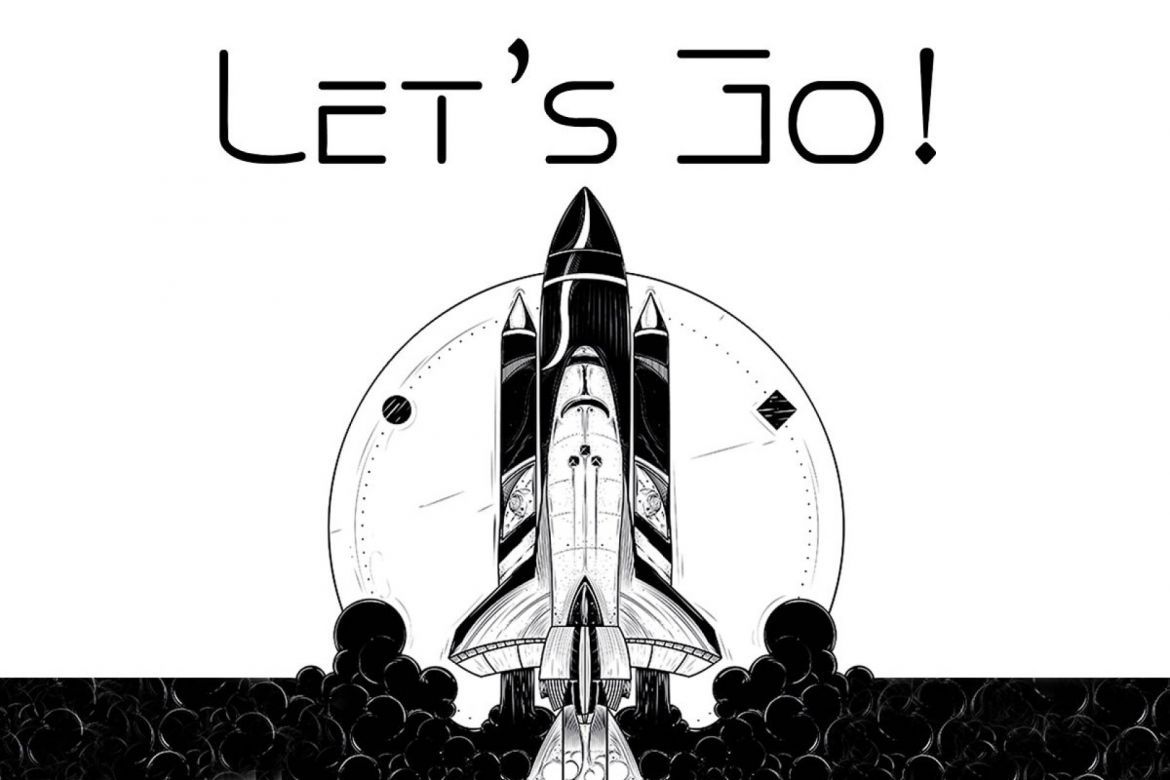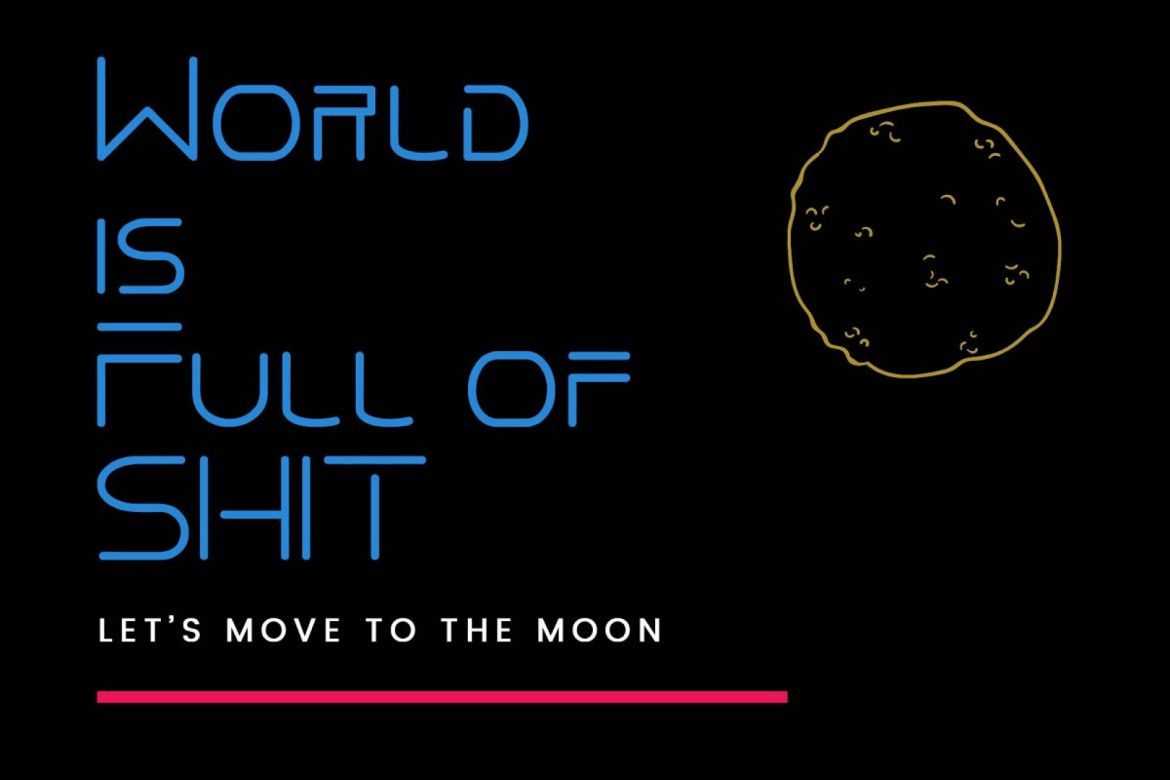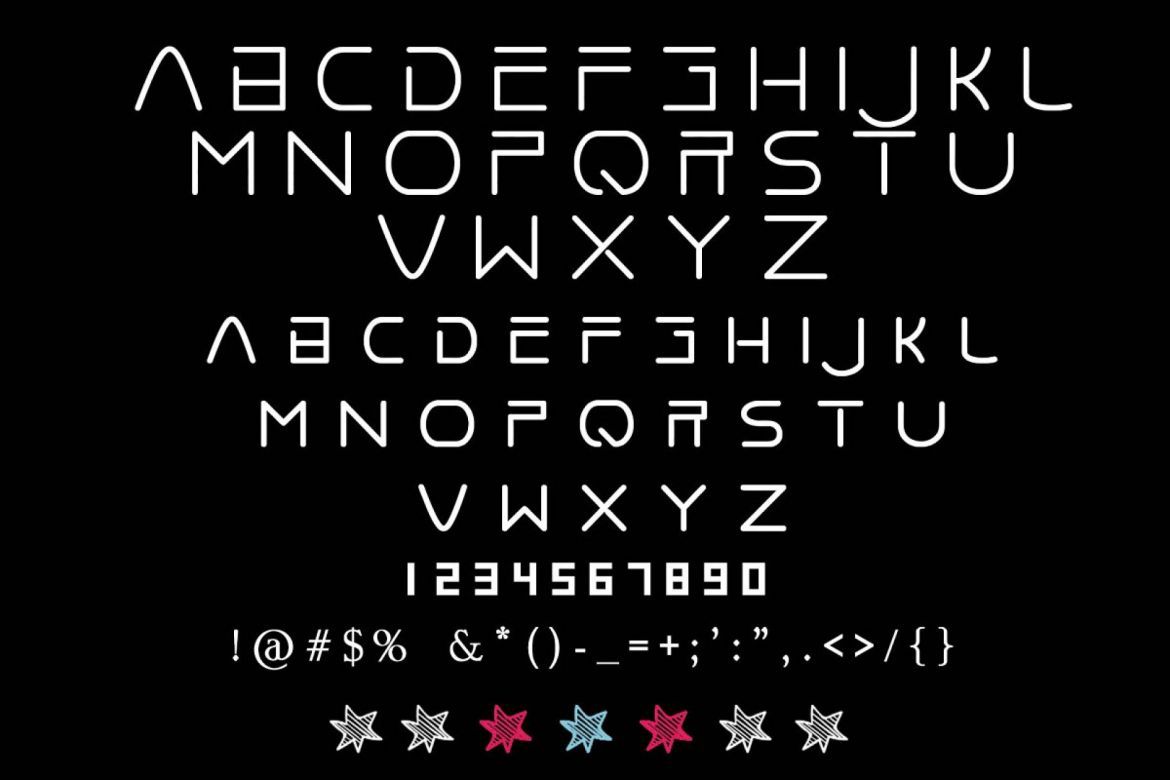
Space Cake Font
Hey there, This time i try to create something with space theme. so, here is a space cake font, well i think its great to make your design more catchy, elegant and look different.
• original font drawn
• perfect for futuristic design